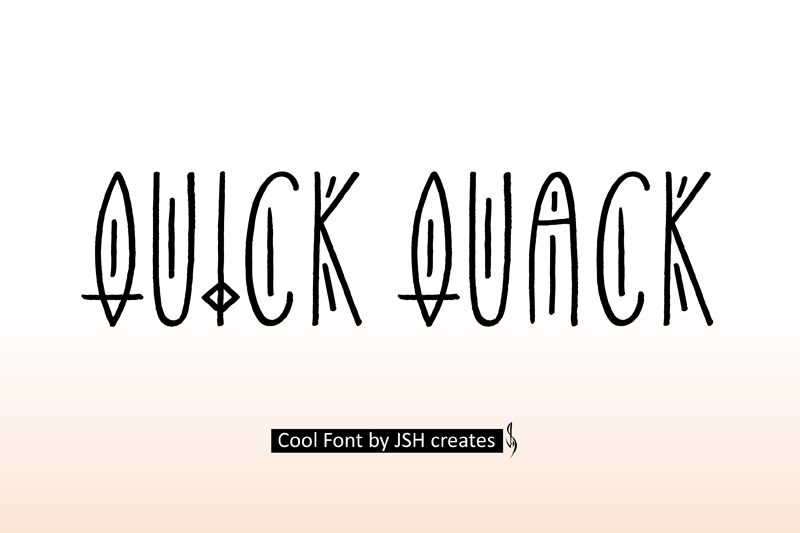
Quick Quack font, designed by JSH creates, is a captivating display typeface that stands out with its playful and unconventional aesthetic. Its light form enhances a sense of airiness, while its unique condensed structure draws attention to each character's whimsical design. The font echoes an artistic flair, making it ideal for eye-catching headlines or brand identities that thrive on creativity.
Perfect for use in children’s products, playful advertising, or modern art applications, Quick Quack radiates a charming personality that invites engagement. Its distinctive style effortlessly combines fun and sophistication, making it a versatile choice for designers looking to leave a memorable impression across various mediums.